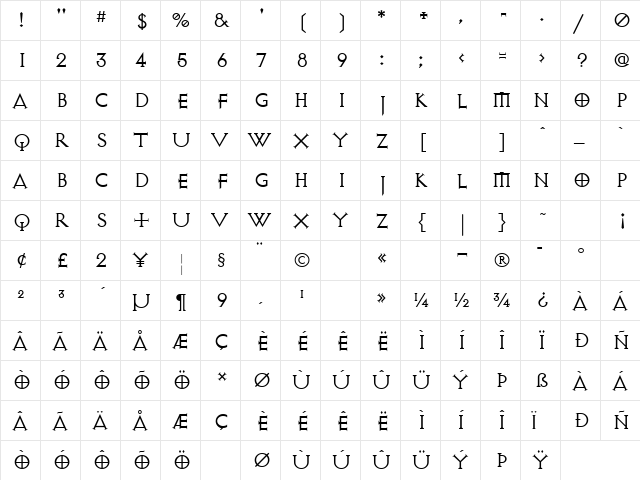
ExocetLight Regular Font Preview
ExocetLight Regular
ExocetLight Regular Font Details
| Foundry | Emigre Inc. |
| Designer | Jonathan Barnbrook |
Design Context for ExocetLight Typeface
ExocetLight offers clean, dependable letterforms without strong stylistic allegiance, making it a practical choice for designers who need flexibility. Its slender proportions lend an understated elegance to any composition.